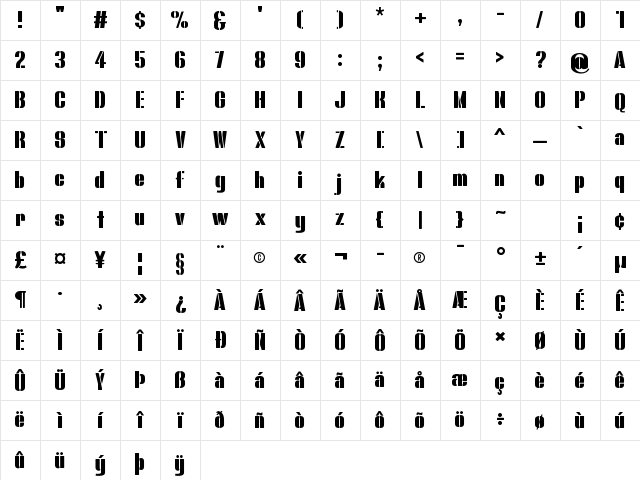
Bluefish STENCIL DEMO Regular
Foundry: StudioTypo
Design Context for Bluefish STENCIL DEMO
Bluefish STENCIL DEMO borrows the utilitarian aesthetic of stencil lettering, with its characteristic cutaways and no-frills construction lending an industrial edge.
Pro Tip: Use Bluefish STENCIL DEMO at large sizes on packaging, posters, or apparel where the stencil cutaways read clearly. Avoid small sizes where those gaps become visual noise.